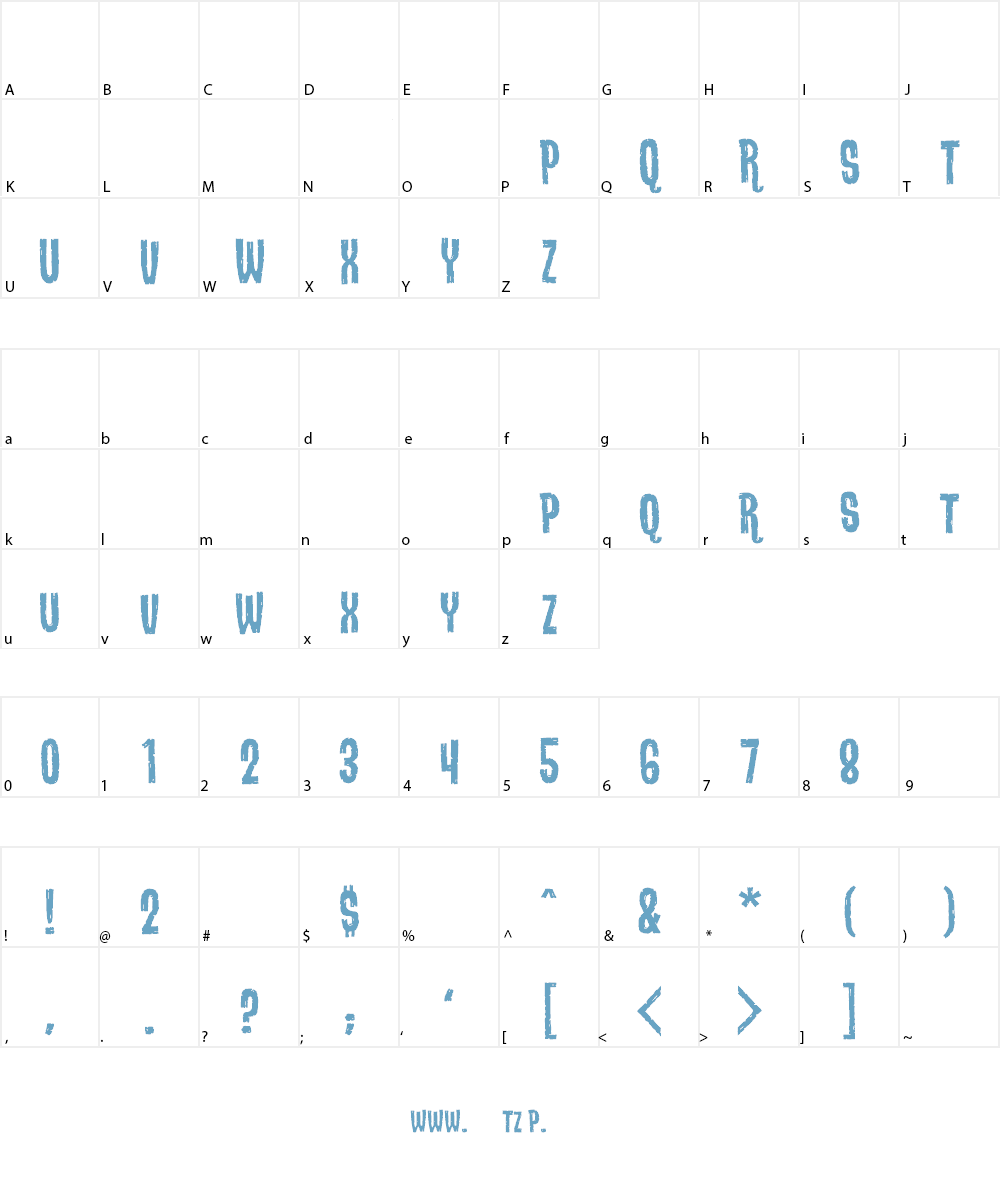
Inspired by classic monster movie posters, DrakuFrankenWolf BB is a distressed title font for all your horrific needs! Opentype only because I threw in some sweet autoligatures that swap out identical adjacent letters for a more organic look.